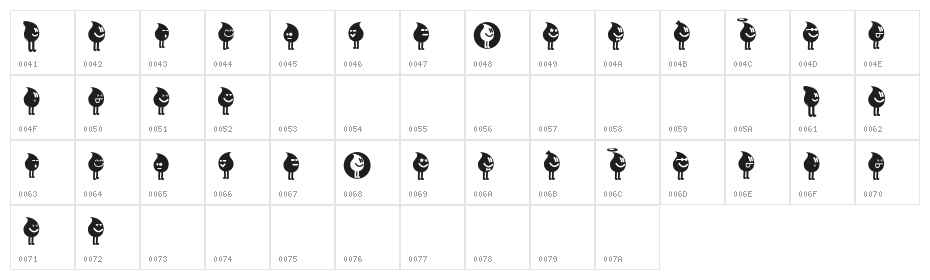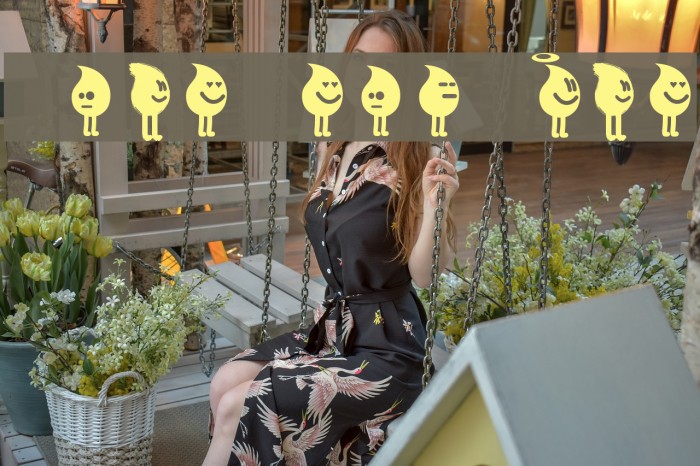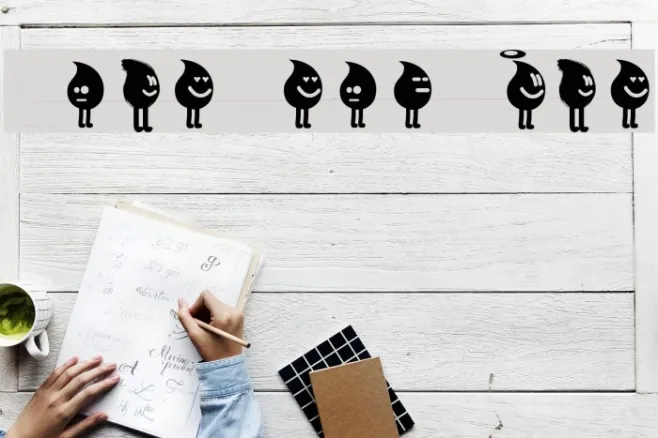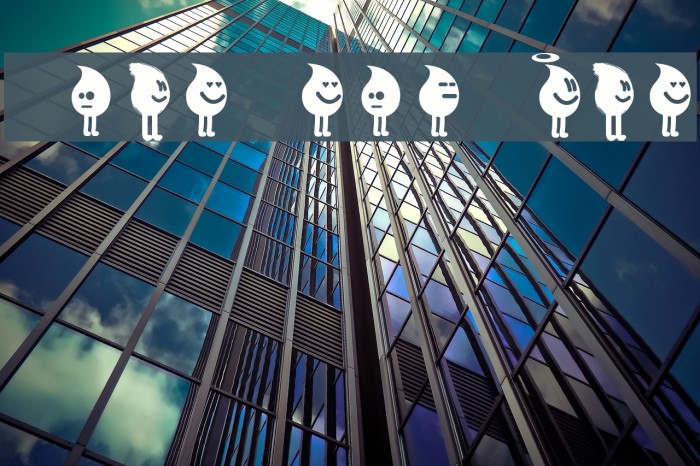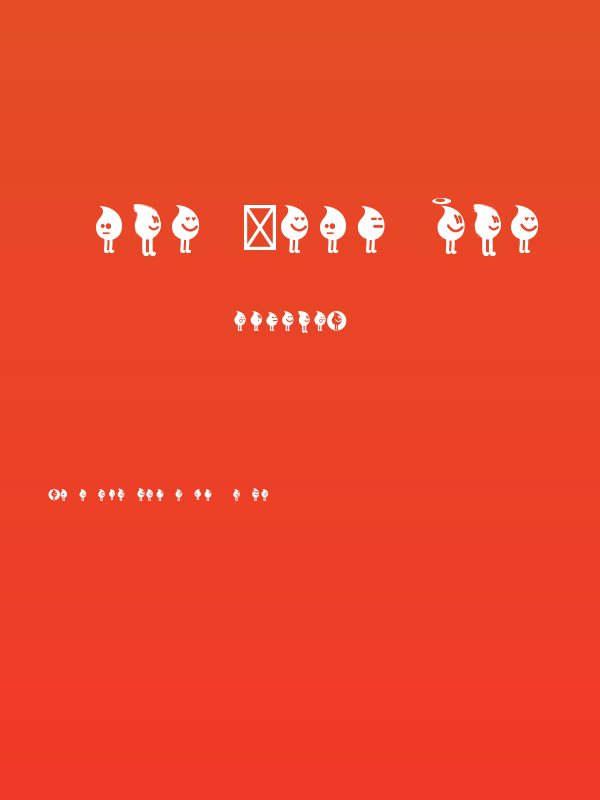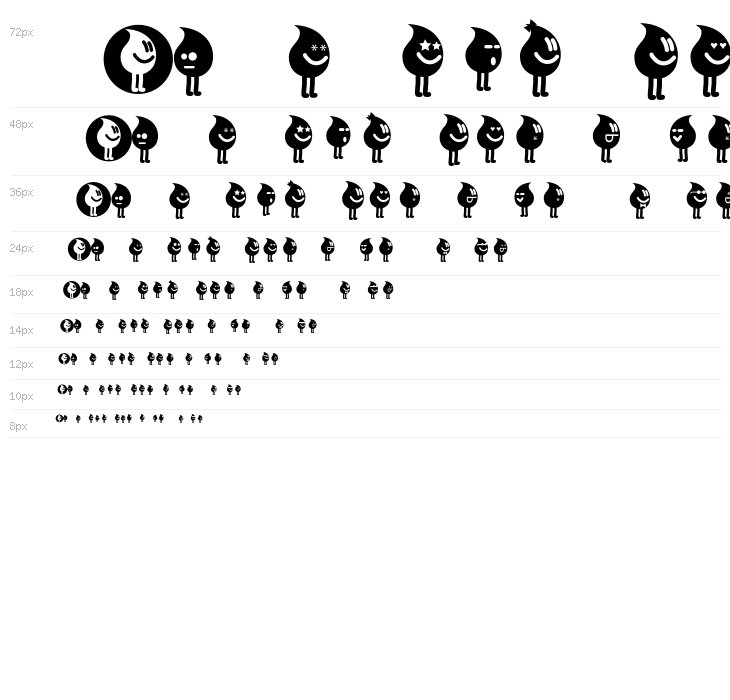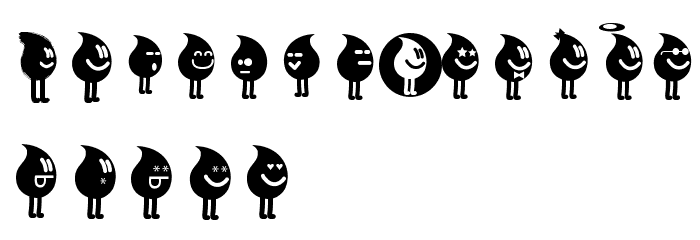
Tearz-Regular Font
Tearz-Regular Description
This is not a traditional font but rather a collection of playful, character-based icons. Each character is designed with a unique expression or accessory, such as sunglasses or a halo, giving them a whimsical and animated appearance. The icons are bold and have a consistent, rounded shape, resembling teardrops or droplets with legs. They are highly stylized, making them suitable for decorative purposes rather than standard text representation.
| Overall Style | Whimsical |
| Use Case | Decorative elements, Branding, Stickers |
| Proposed Projects | Ideal for children's books, playful branding, or digital stickers. |